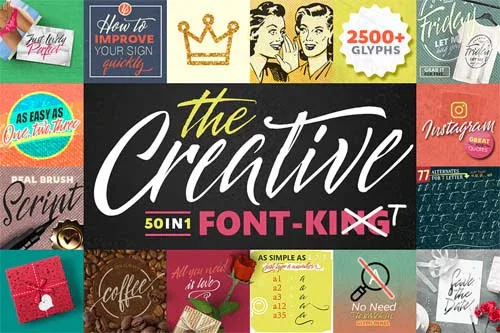
50 In 1 The Creative Font
Spark your imagination with this expansive collection of 50 English fonts, each featuring diverse and creative designs. This library offers a rich assortment of illustrative, decorative, and highly stylized typefaces—including hand-drawn styles, vintage-inspired letters, modern geometric forms, playful shapes, and textured designs—that provide endless possibilities for artistic expression. Ideal for crafting unique logos, eye-catching packaging, engaging social media graphics, editorial layouts, and any project where typography itself becomes a central visual element.
Key Features of This Creative Font Collection:
- 50 Distinctive & Artistic Fonts: Hand-drawn, vintage, geometric, playful, and textured styles.
- Designed for Visual Impact: Perfect for projects where typography leads the design.
- Lightweight & Versatile: A broad range of creative options in an efficient package.
Just type a number after any letter and you will see how they switch to alternates without any effort. You still can use the Glyph panel, but typing numbers are much faster… You will love it as I do. Not necessary to switch to a panel as it always stops the creative process. Now you can see updates on the go! It will save a tone of your time!
TheCreative.TTF (recommended to install) – a font that was originally painted with a brush pen. You are getting 2700 glyphs full of PUA encoded alternates and ligatures and other required staff. (See below.)